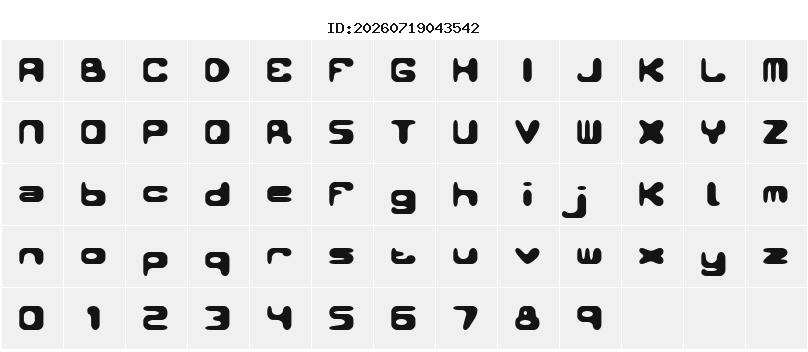
Conduit (BRK) Preview
• Font Name: Conduit (BRK)
• Full Font Name: Conduit (BRK)
About Conduit (BRK).ttf
Conduit (BRK).ttf is a modern, elegant sans-serif font designed for ultimate readability and visual harmony. Perfect for branding, headlines, web design, and print materials.